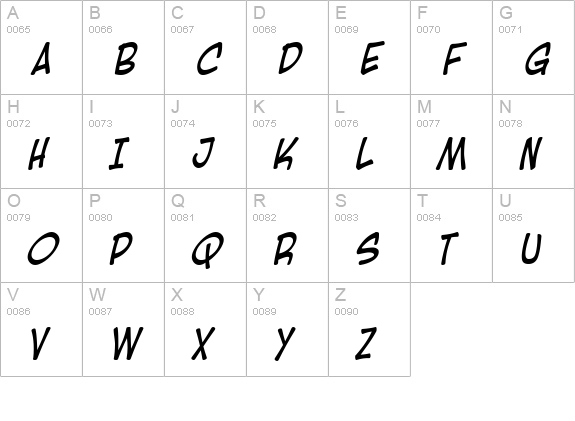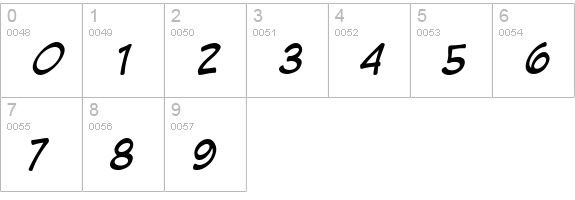
Blambot Casual Italic is a distinctive, italic variant in the Blambot typeface family \xE2\x80\x94 well suited to design and typography projects.
Blambot Casual Italic font is a charming and versatile typeface that exudes a sense of casual elegance. With its slanted and flowing design, this font is perfect for adding a touch of flair to your projects. Whether you're working on invitations, social media graphics, or branding materials, Blambot Casual Italic will bring a modern and stylish look to your designs. The best part? Blambot Casual Italic font is available for free download at FontsMarket.com. That's right, you can enhance your creations with this beautiful font without having to spend a dime. So why wait? Add a touch of sophistication to your projects with Blambot Casual Italic font today!